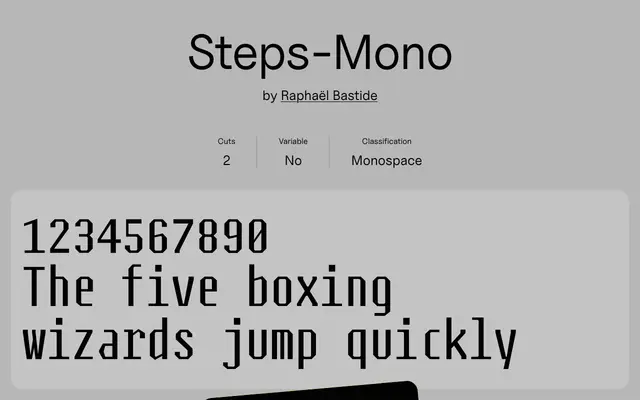
Steps-Mono
A two-cut monospace typeface by Raphaël Bastide, released under the SIL Open Font License for free commercial and personal use.
Steps-Mono is a fixed-width typeface by Raphaël Bastide, offered in two cuts with no variable axis. It is distributed under the SIL Open Font License 1.1, permitting commercial use, modification and redistribution with conditions. The limited cut count keeps the family lean, suited to code, interface and editorial contexts where a straightforward monospace is needed.
Classified explicitly as Monospace by the foundry; a fixed-width typeface in two cuts with no variable axis.